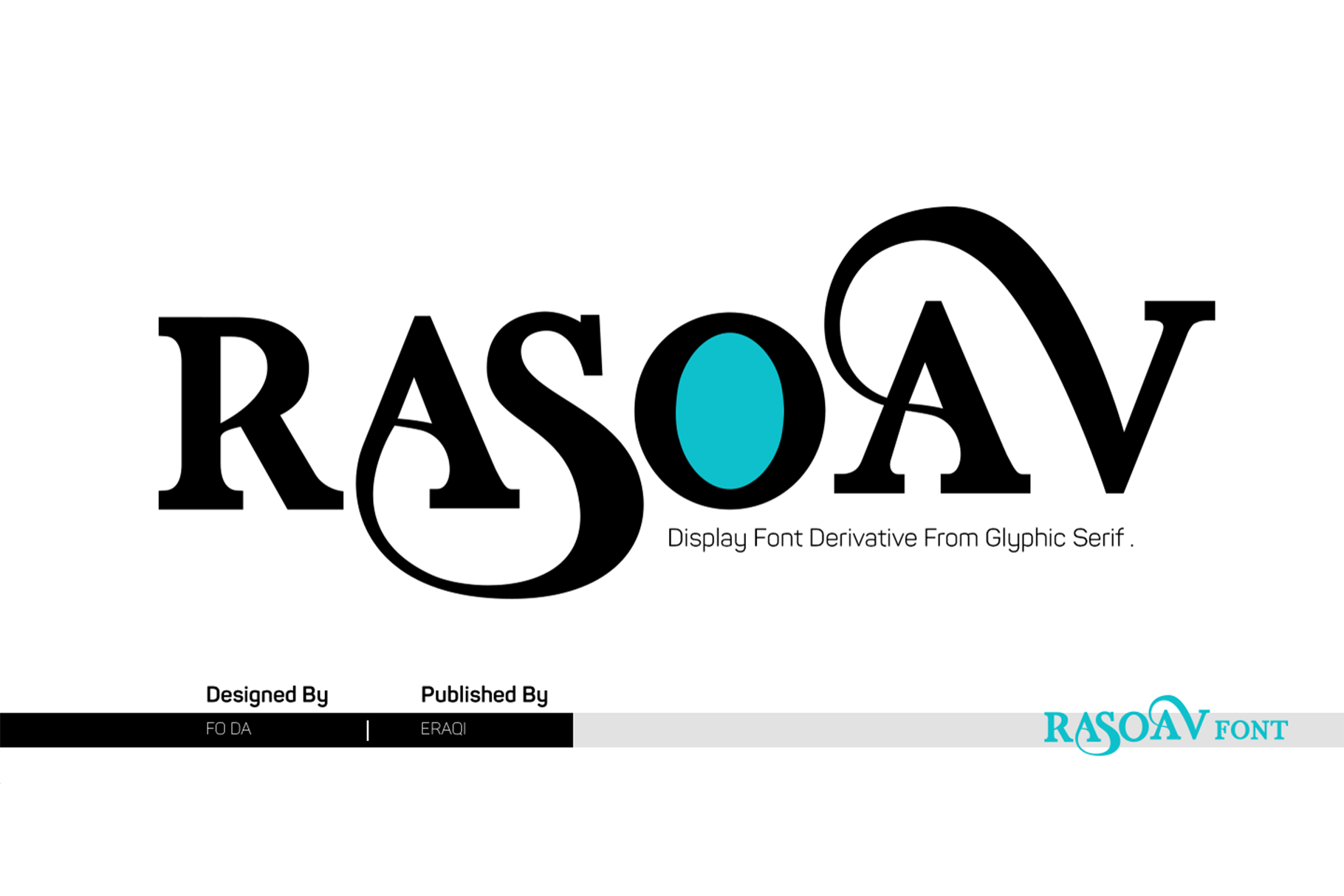
Rasoav Font
Rasoav is a Display “ALL CAPs” font, derivative from Glyphic Serif consisting of a single weight. It supports English, Spanish, German, French, Extended Latin and more … Main Features: • Perfect for headlines • 265 glyphs • 78 ligatures • Support many languages